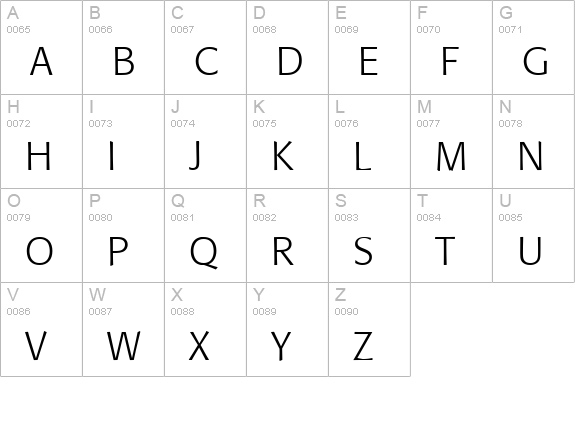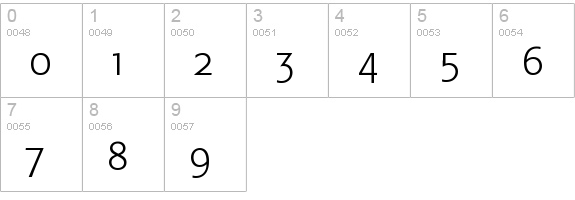
Formata Light Small Caps & Oldstyle Figures Font Details
Formata Light Small Caps & Oldstyle Figures is a refined, elegant variant in the Formata typeface family \xE2\x80\x94 well suited to elegant body text, refined sub-headings, and luxury branding.
Formata Light Small Caps & Oldstyle Figures is a sophisticated and elegant font that exudes a classic charm. The small caps and oldstyle figures add a unique touch to any design, making it stand out from the rest. With its clean lines and timeless appeal, this font is perfect for projects that require a touch of refinement and style. Best of all, Formata Light Small Caps & Oldstyle Figures is available for free download at FontsMarket.com. Whether you're working on a professional project or a personal endeavor, this font is sure to elevate your design and leave a lasting impression. Don't miss out on the opportunity to enhance your work with this beautiful and versatile typeface. Download it today and see the difference it can make in your projects.